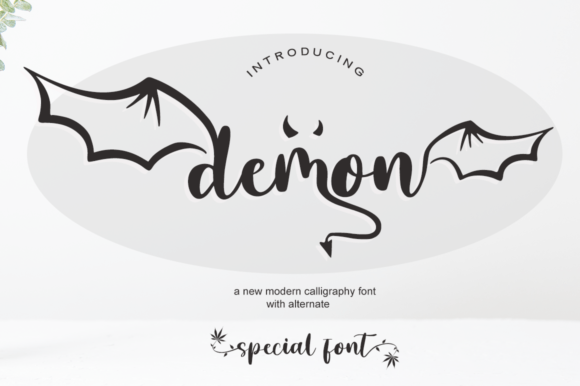
Demon Font: The Elegant and Timeless Choice for Your Design Projects
The world of typography is vast and diverse, offering a multitude of font styles to suit various design needs. Among these, the Demon Font stands out for its unique blend of elegance and timelessness. Described as a flowing handwritten font with an elegant touch, Demon is perfect for those looking to add a distinct flair to their favorite projects. In this article, we’ll delve into the characteristics of the Demon Font, its uses, and why it has become a beloved choice among designers.
Key Features of Demon Font
- Flowing Handwritten Style: The Demon Font boasts a smooth, flowing script that mimics the elegance of handwritten text. Its fluid strokes and connections give it a natural, effortless look.
- Elegant Touch: What sets Demon apart is its elegant touch. The font has a refined quality that makes it suitable for projects that require a sophisticated and classy appearance.
- Distinct and Timeless Style: The Demon Font’s style is incredibly distinct, making it easily recognizable. Its timeless quality ensures that it remains relevant and stylish, regardless of current trends.
Versatile Applications of Demon Font
The Demon Font’s versatility is one of its most appealing attributes. Its elegant and flowing style makes it suitable for a wide range of design projects, including:
- Branding and Logo Design: For businesses looking to establish a sophisticated brand image, the Demon Font can be a great choice. Its unique style can help create memorable logos and brand names.
- Wedding and Event Invitations: The elegant nature of the Demon Font makes it perfect for wedding invitations, event posters, and other formal announcements.
- Packaging Design: For products that require a touch of elegance and sophistication, the Demon Font can be used effectively in packaging design.
- Digital Media: Whether it’s for website headers, social media graphics, or digital advertising, the Demon Font can add a classy touch to various digital media.
Why Choose Demon Font?
With so many fonts available, why should designers opt for the Demon Font? Here are a few compelling reasons:
- Uniqueness: The Demon Font offers a unique style that can help your designs stand out from the crowd. Its distinctiveness ensures that your work doesn’t get lost in a sea of generic fonts.
- Timeless Appeal: Unlike trendy fonts that may quickly become outdated, the Demon Font has a timeless quality that ensures your designs remain stylish and relevant for years to come.
- Ease of Use: The Demon Font is designed to be highly legible, making it easy to use in various contexts, from large headings to smaller body text.
- Emotional Connection: The elegant and flowing nature of the Demon Font can evoke a sense of luxury, sophistication, and refinement, helping you connect with your audience on an emotional level.
Tips for Using Demon Font Effectively
To get the most out of the Demon Font, consider the following tips:
- Pair with Complementary Fonts: When using the Demon Font, consider pairing it with simpler, sans-serif fonts for contrast. This can help create visual hierarchy and enhance readability.
- Adjust Letter Spacing: For better legibility, especially in longer texts, adjust the letter spacing to ensure that the elegant flow of the Demon Font is maintained without compromising readability.
- Use for Headings and Accents: While the Demon Font is beautiful, it can be overwhelming to use it for large blocks of text. Use it for headings, titles, and accents to add elegance and sophistication to your designs.
The Demon Font is a beautiful, elegant, and timeless choice for designers looking to add a touch of sophistication to their projects. Its flowing handwritten style, distinctiveness, and versatility make it suitable for a wide range of applications, from branding and packaging to digital media and event invitations. By choosing the Demon Font, you’re opting for a unique and timeless style that can help your designs stand out and connect with your audience on an emotional level.
Final Thoughts
In the world of typography, the right font can make all the difference in your design. The Demon Font, with its elegant touch and flowing style, offers a unique solution for designers seeking to create spectacular designs. Whether you’re working on a branding project, event invitation, or digital media, the Demon Font is sure to leave a lasting impression.